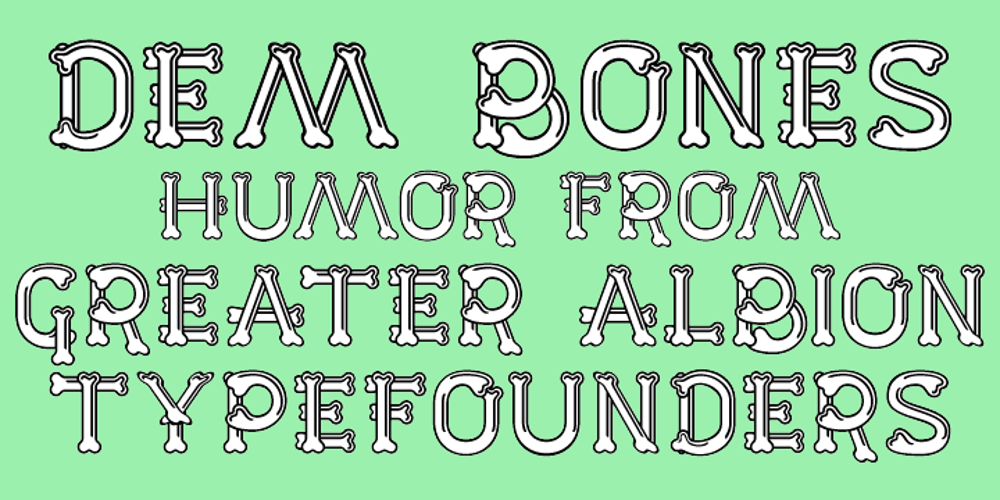
Dem Bones Font Family was designed by Paul James Lloyd and published by Greater Albion Typefounders. Dem Bones contains 1 styles and family package options. Dem Bones is a bit of fun-display alphabet (capitals), numbers and punctuation assembled out of the sort of knobbly ended bones that dogs used to gnaw on in all the best childrens cartoons and comics. Thing Gnasher and Gnipper or Spike and Tyke. Dem Bones is particularly apt at Halloween, but can introduce some un at any time of the year…